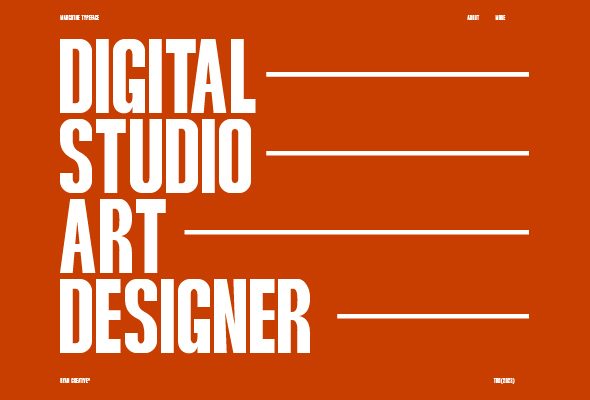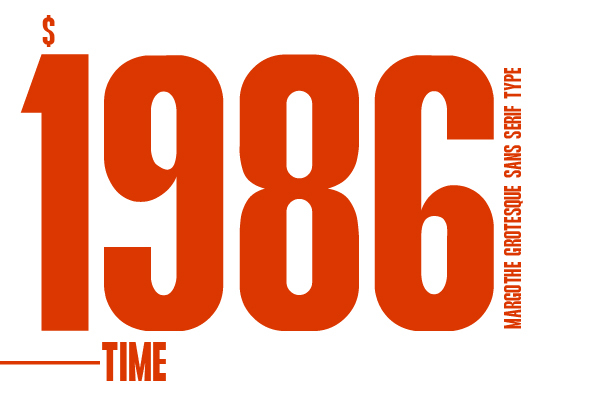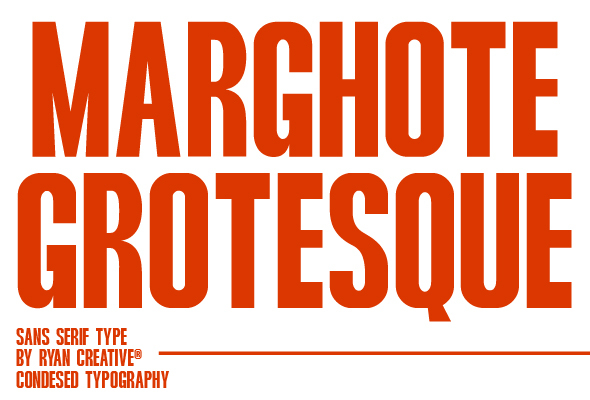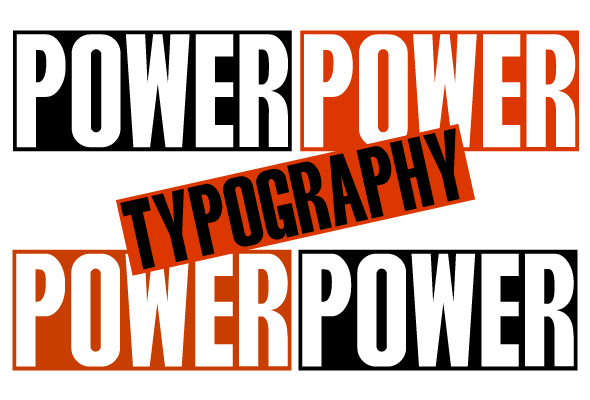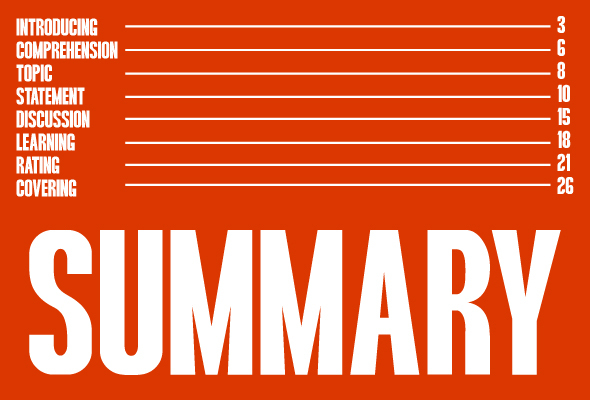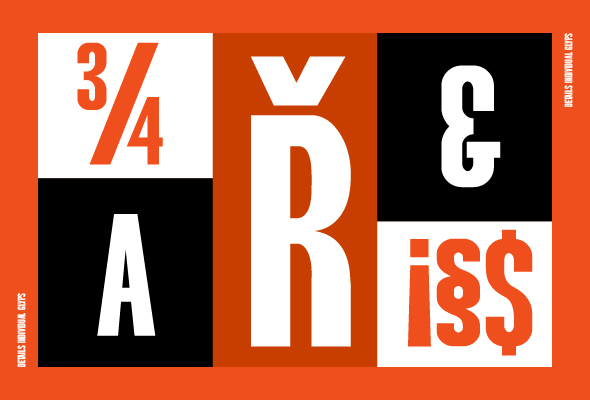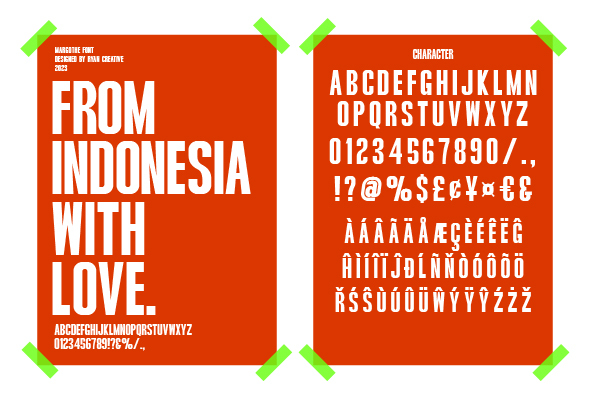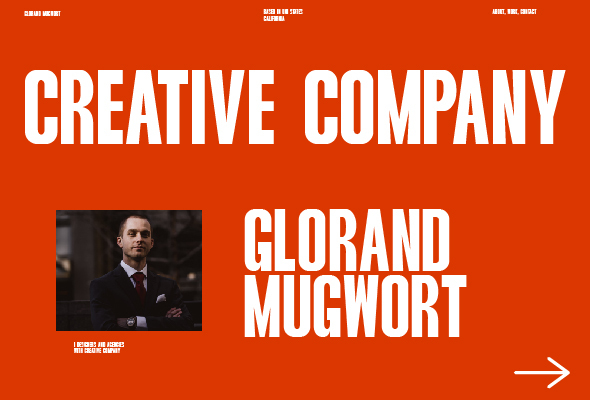
Marghote Grotesque - Condensed Font
Marghote which has a simple design and grotesk style. This font is bold and condensed, making it look more minimalist and easy to read. Marghote can be used in modern and contemporary designs, and is suitable for use in various fashion media, posters, magazines, typography and other digital media.
+ Uppercase
+ Support Foreign, Numbers and Punctuation.